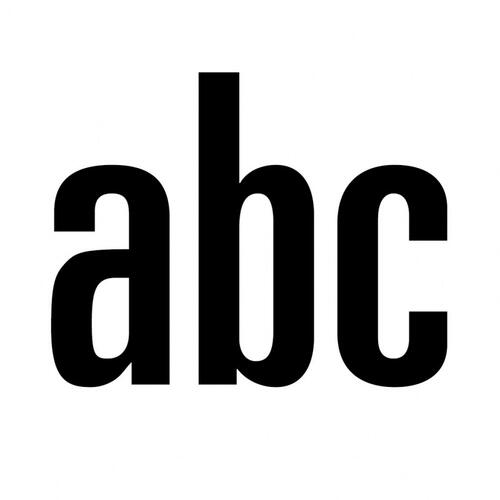
A font with a width smaller than what would be considered “normal” or “regular”.
Dutch: versmald
French: condensé
German: schmal
Italian: stretto
Norwegian: Smal
Polish: ściśnięte
Portuguese: condensada
Spanish: Estrecha
Turkish: Daraltılmış